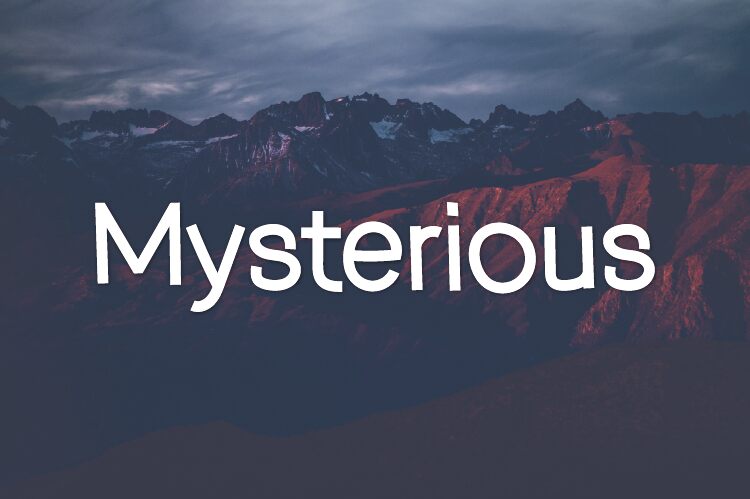
Mysterious font family is a free fancy collection of fonts designed by Hanna Bie. This contemporary font family is inspired by contemporary neutrality and its approachable minimalist style. Its clean and modern dimension makes it attractive for professional and non-professional users. The package includes 2 fonts.
With its modern vibe, Mysterious will be suitable for technological branding, website design, mobile interfaces, editorial layouts, and corporate identities. However, it is less restricted to professional potential as it can also be great for book covers, posters, opera tickets, wedding invitations, and inspirational quotes.